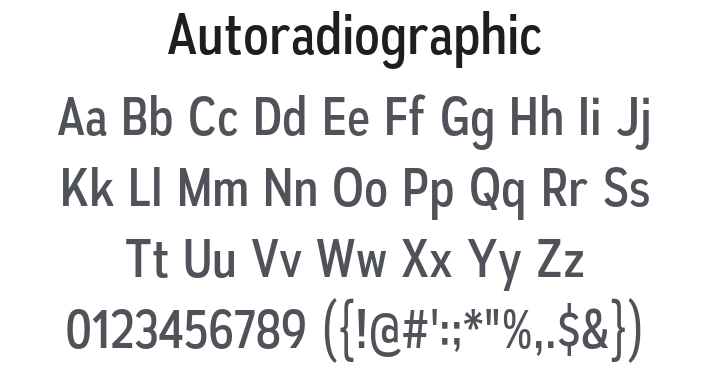
Autoradiographic Font Family
About Autoradiographic
Autoradiographic captures the utilitarian spirit of mid-century American lettering with a modern edge. Its condensed sans forms, square-ended, tightly built, and subtly curved, evoke stenciled lab doors and industrial signage from the atomic age. Five weights with italics provide range from precise labeling to bold display use, while the italics bring a hand-painted confidence rather than classical slant. Clear numerals and sturdy symbols echo vintage data plates, giving text an authentic, functional tone. Designed for designers who appreciate postwar grit and modern polish, Autoradiographic delivers sharp, timeless industrial character.